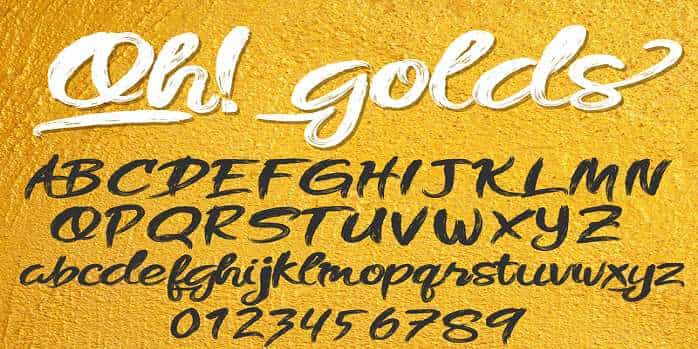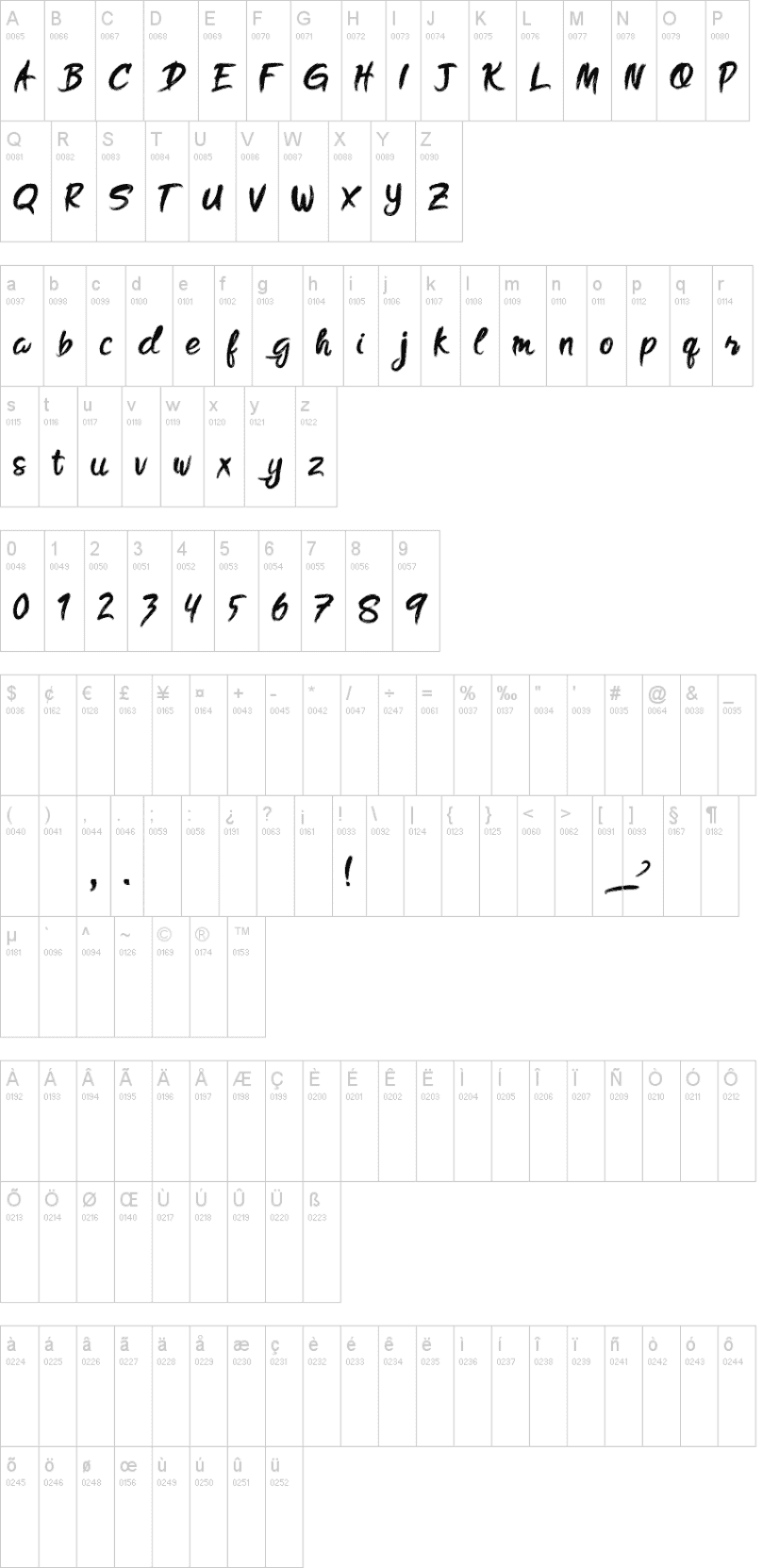
Discover Oh! golds Font, part of the Brush collection—a versatile and unique font perfect for adding a personal touch to your projects. Download it for free and enjoy crafting designs with style, from invitations to social media posts. This font is available exclusively for personal use, giving you the freedom to create without limits. Unlock your creativity with Oh! golds Font today!